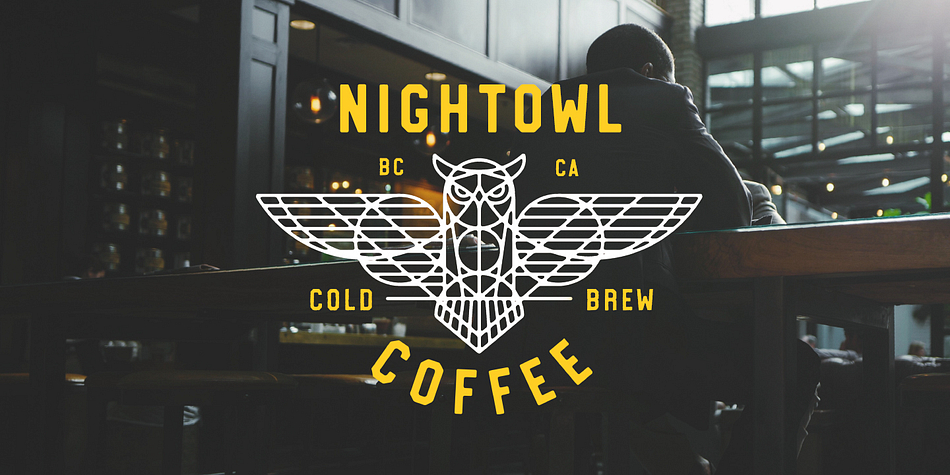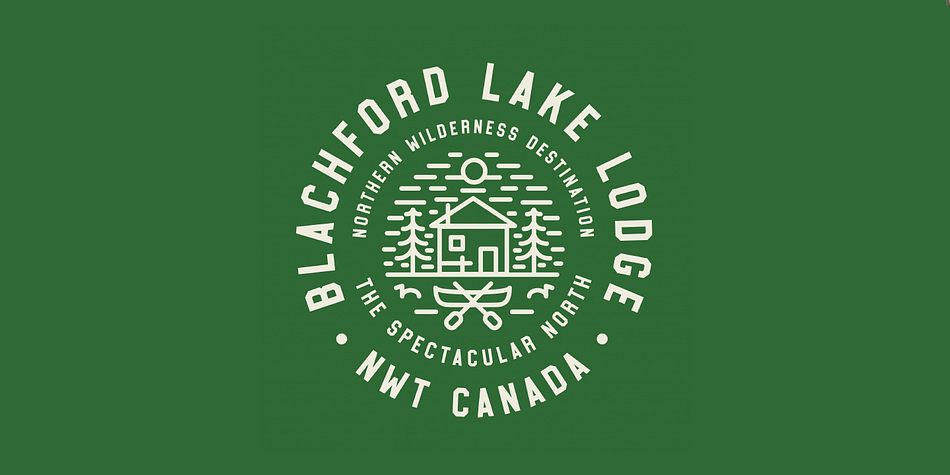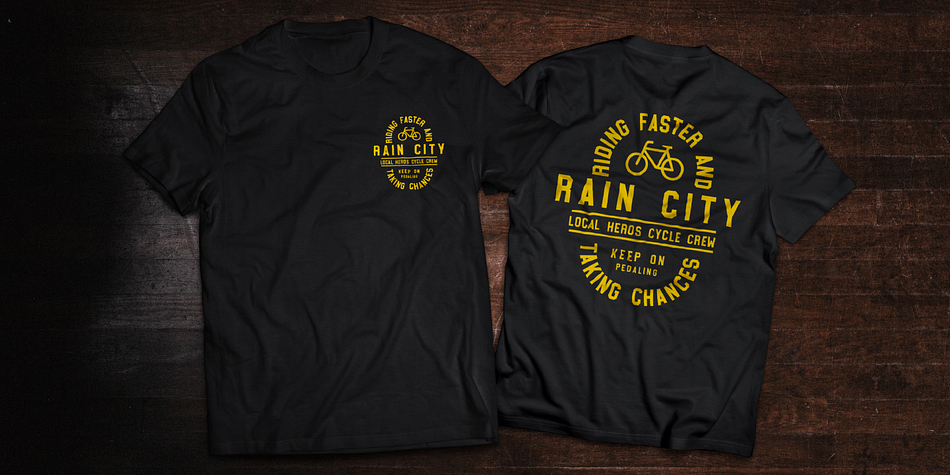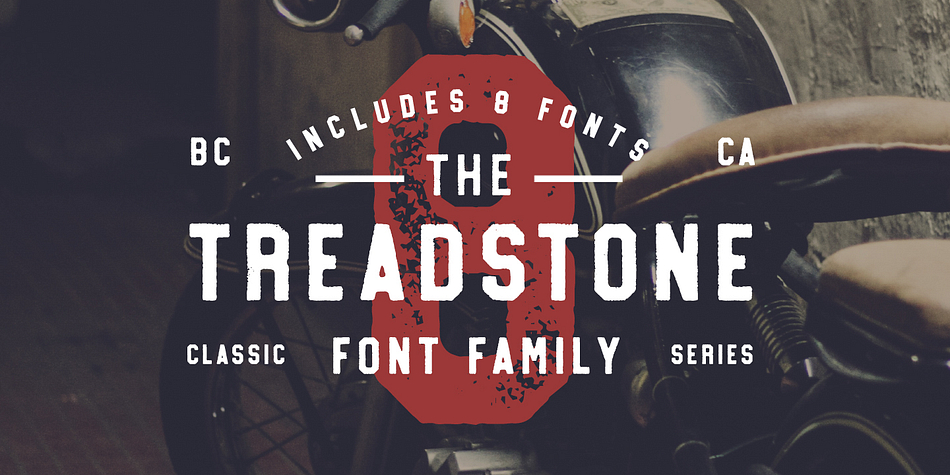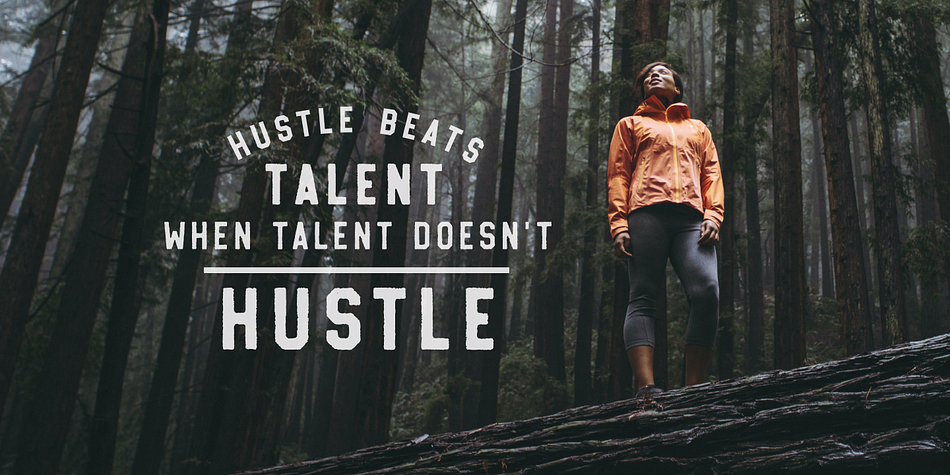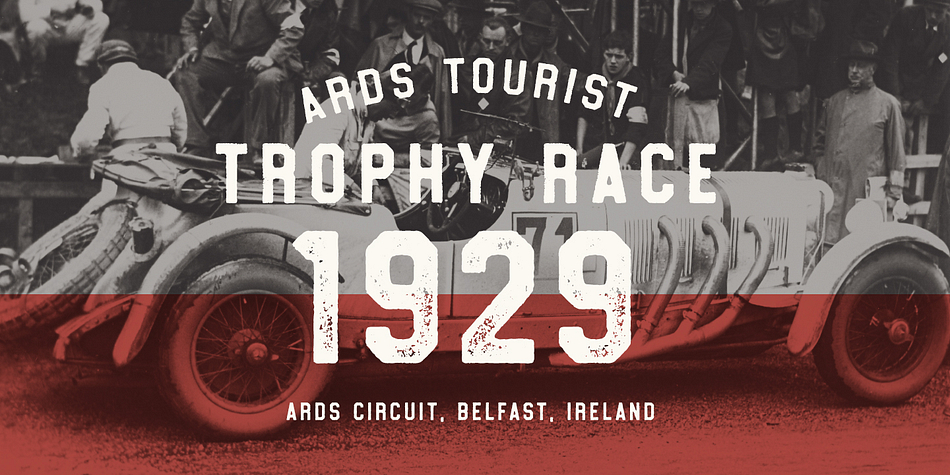
Designed by Greg Nicholls, Treadstone is a display sans and grunge font family. This typeface has eight styles and was published by Rook Design Supply.
Treadstone is a family of EIGHT fonts that give a modern twist on a classic look. This font family includes versions with rounded edges, rough edges and grunge effects, each of which has its own character and charm. Treadstone works great for headlines, titles and logos.
Foundry | Rook Design Supply |
Styles | Display Sans, Grunge |
Designer | Greg Nicholls |